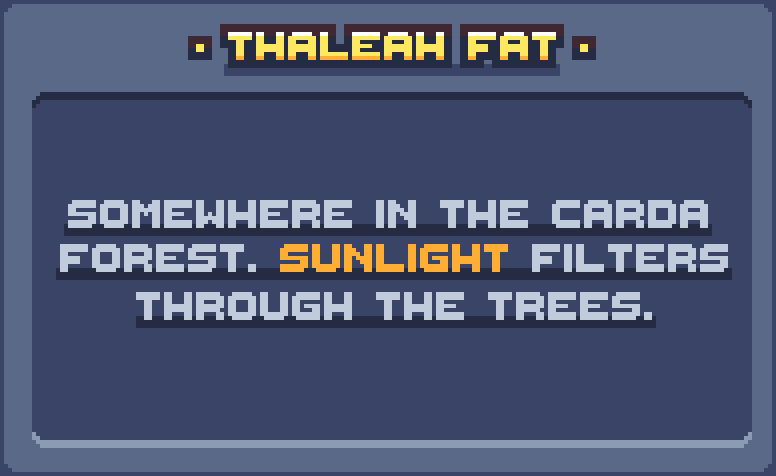
Font name: | Thaleah Fat |
Author: | Rick Hoppmann |
Note by Rick Hoppmann | |
This free TTF font is great for your pixelart games! It's a strong, fat font, that will draw the attention of the player. |